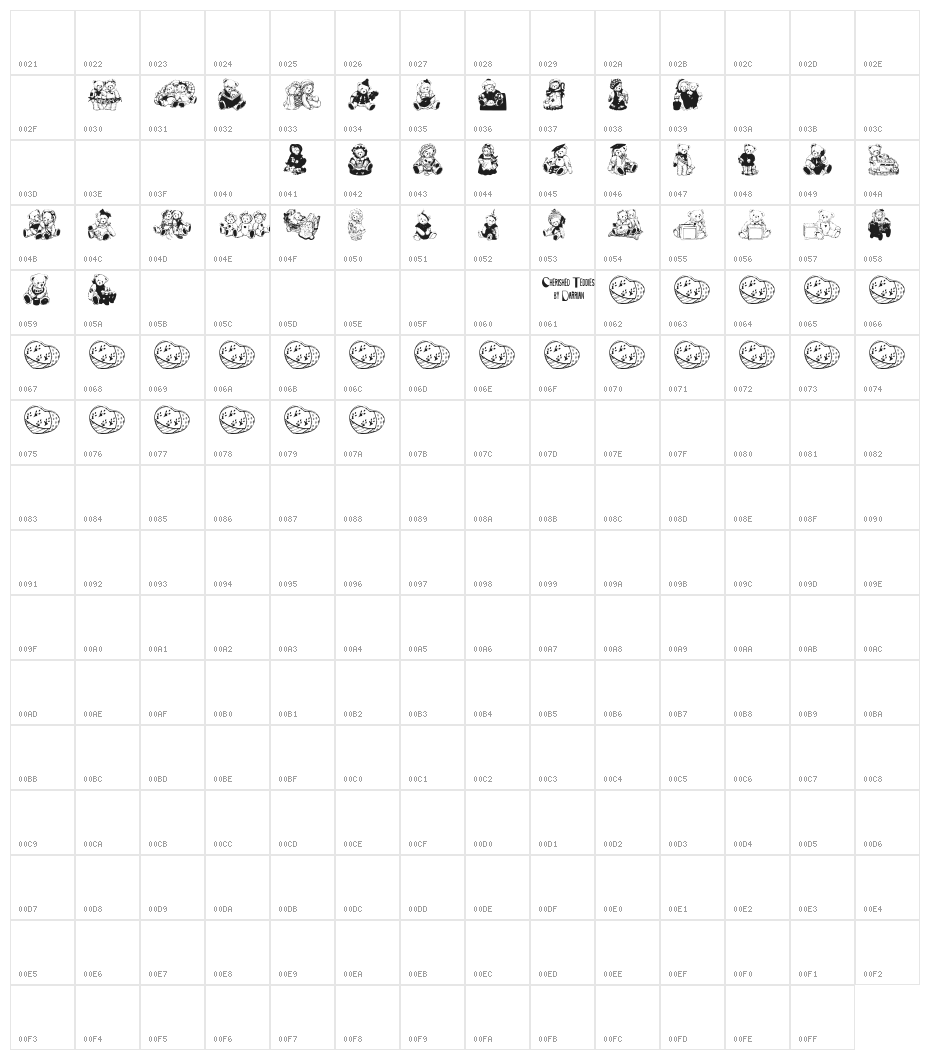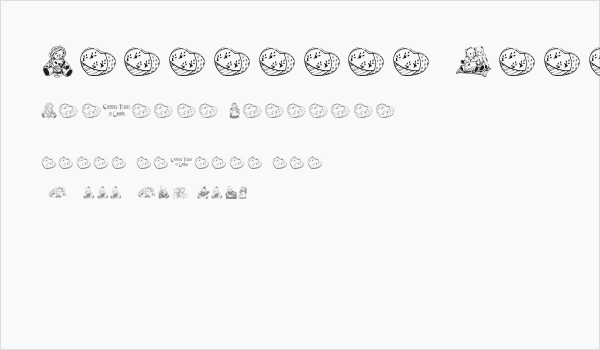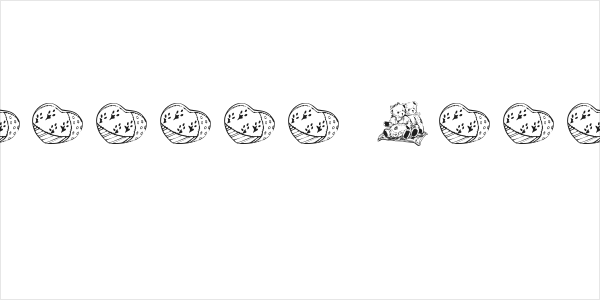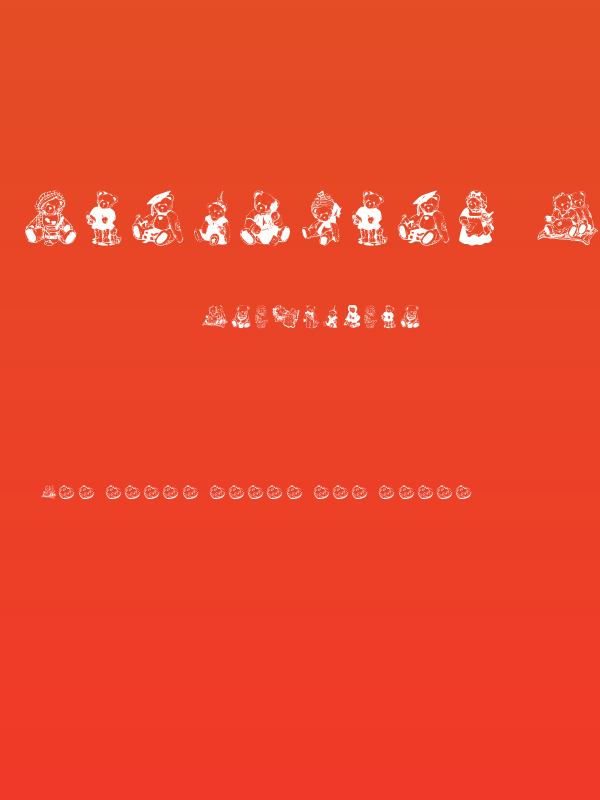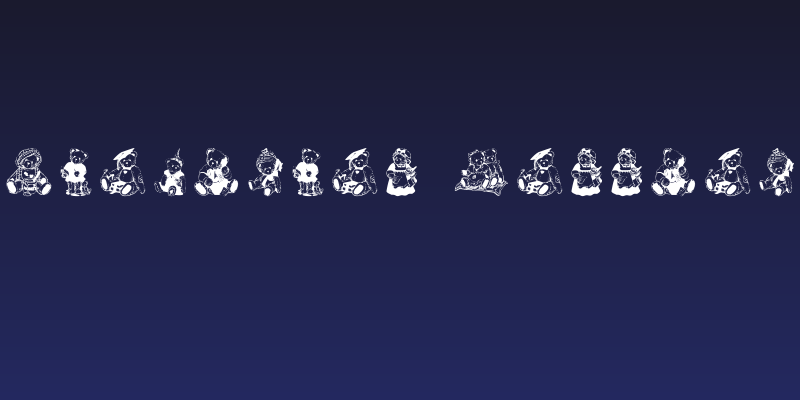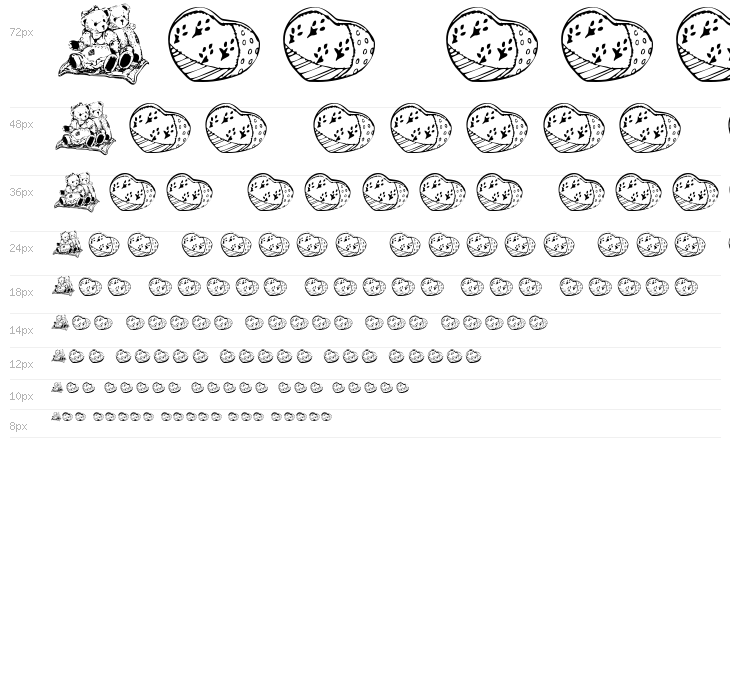
Cherished Teddies Font
Cherished Teddies Description
A decorative font composed of detailed teddy bear illustrations representing each character, with playful and nostalgic imagery. The font is highly pictorial, with each letter and symbol depicted as a unique teddy bear or themed object, making it more of a dingbat or icon set than a traditional typeface.
| Overall Style | Decorative, Playful, Nostalgic |
| Use Case | Decorative elements, Themed graphics, Not suitable for body text |
| Proposed Projects | ChildrenΓ’β¬β’s party invitations, scrapbooking, greeting cards, themed posters, playful branding. |